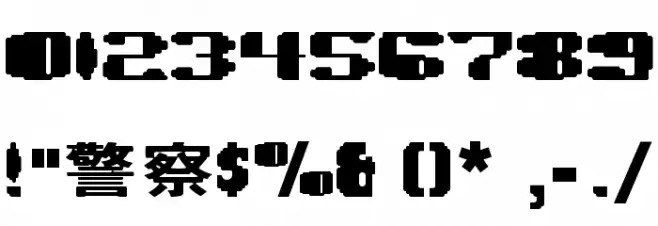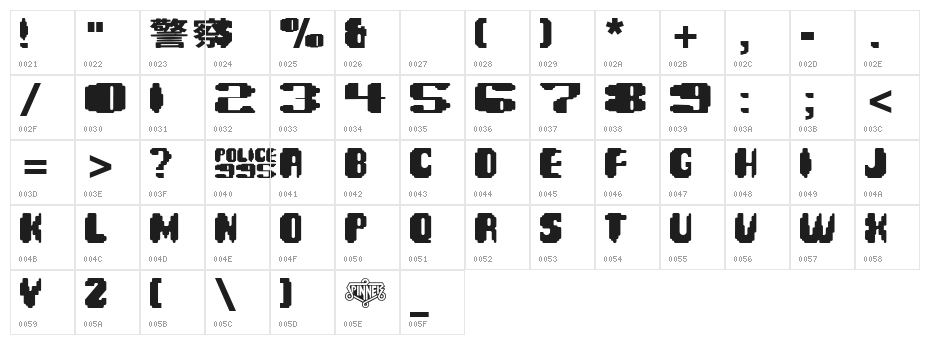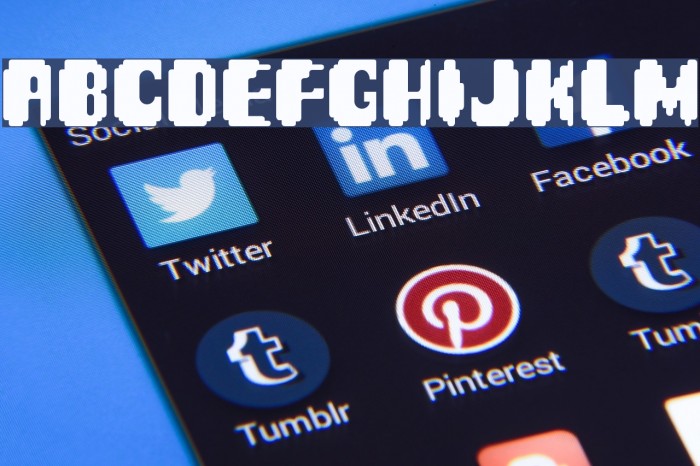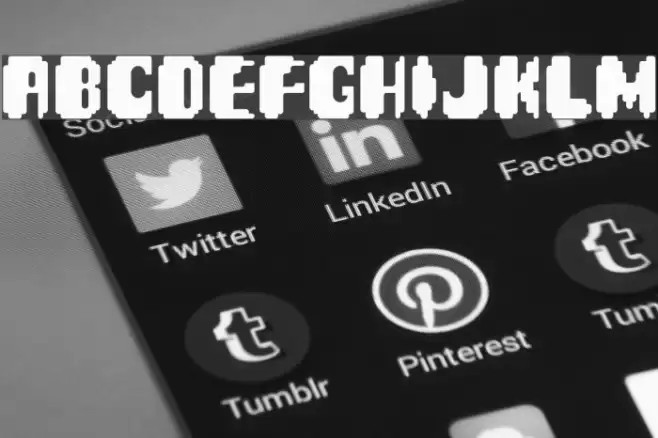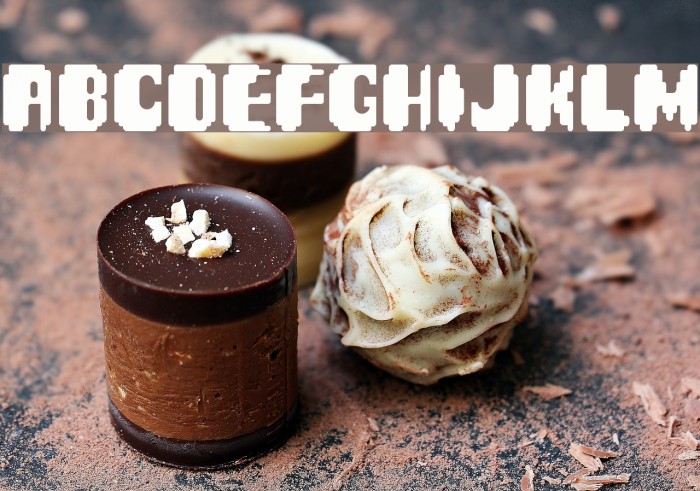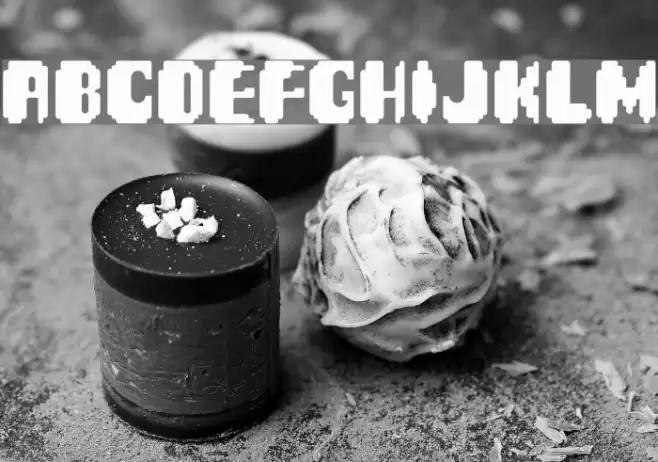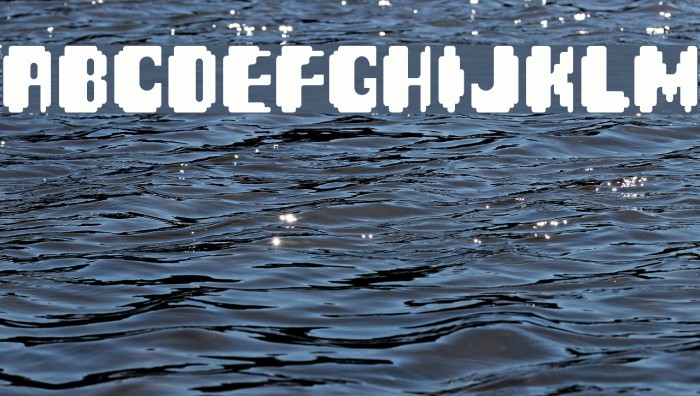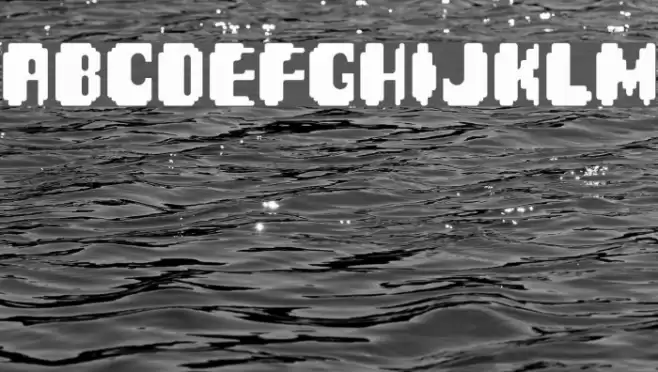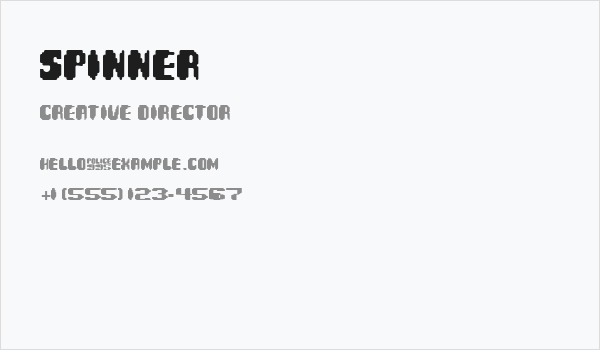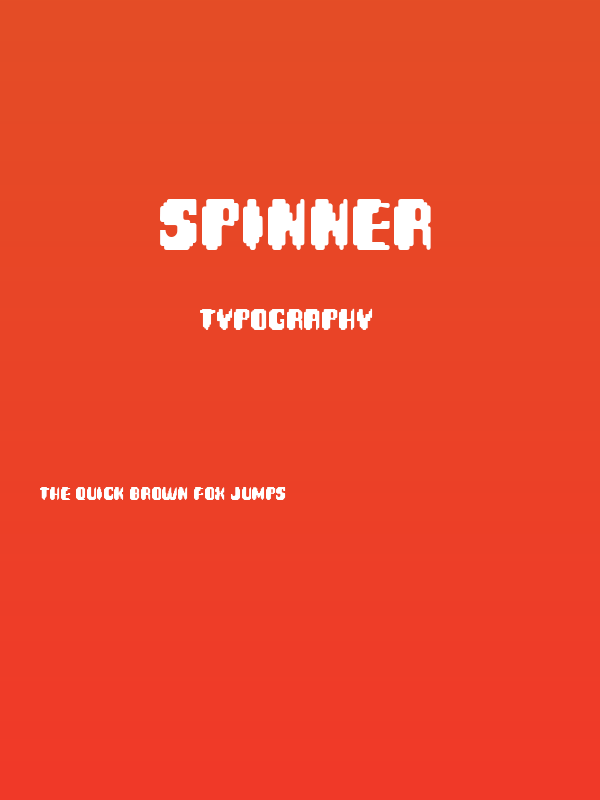
Spinner Font
Spinner Description
This font features a bold and blocky design with a distinct pixelated appearance. The characters are uniformly thick, creating a strong visual impact. The edges are sharp and angular, giving it a digital or retro gaming aesthetic. The uppercase and lowercase letters maintain a consistent style, with the numerals and special characters following suit. This font's unique style makes it stand out, ideal for projects that require a bold statement or a nostalgic feel.
| Proposed Projects | Ideal for video game titles, retro-themed posters, digital art projects, and any design requiring a bold, nostalgic look. |